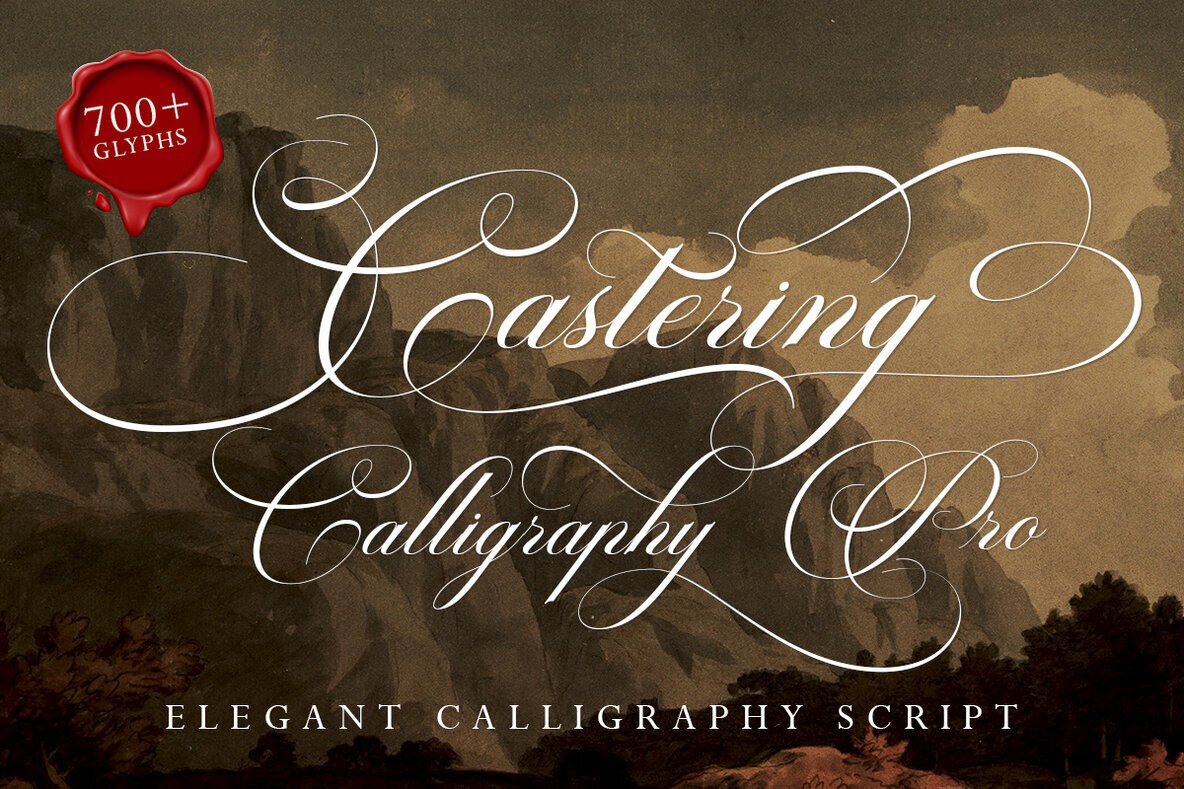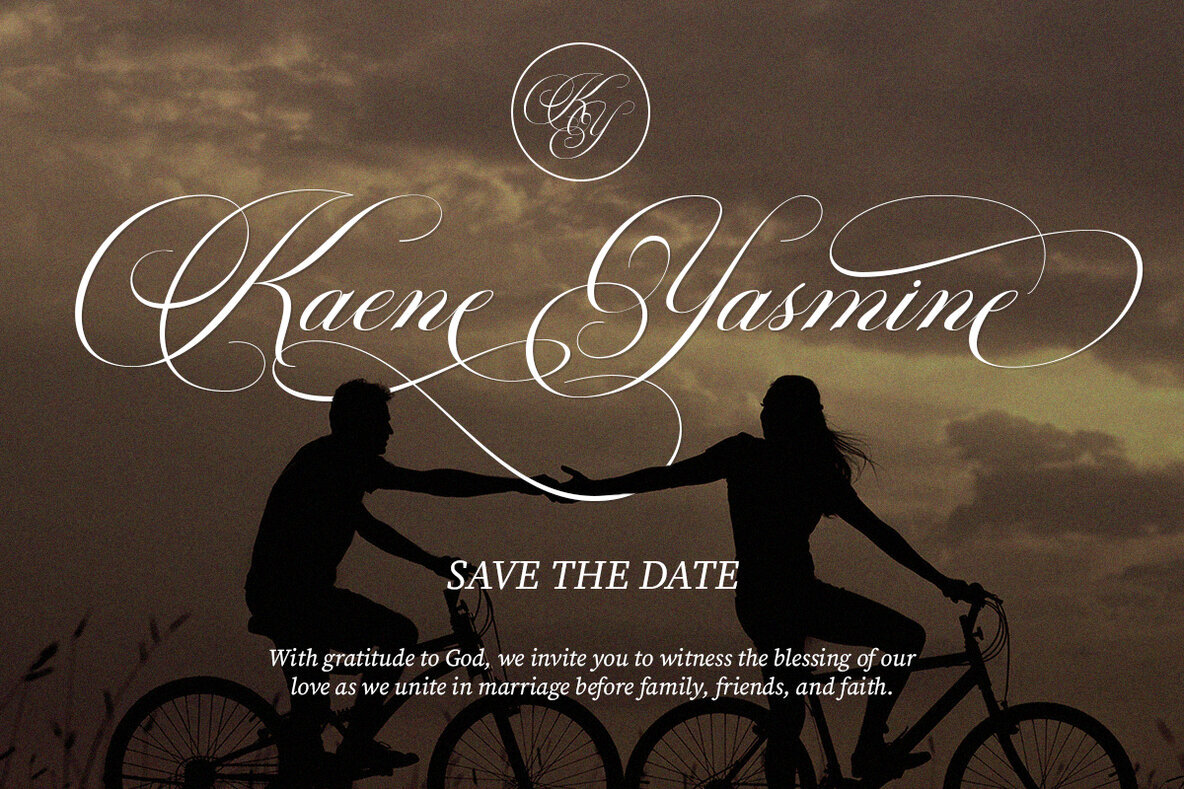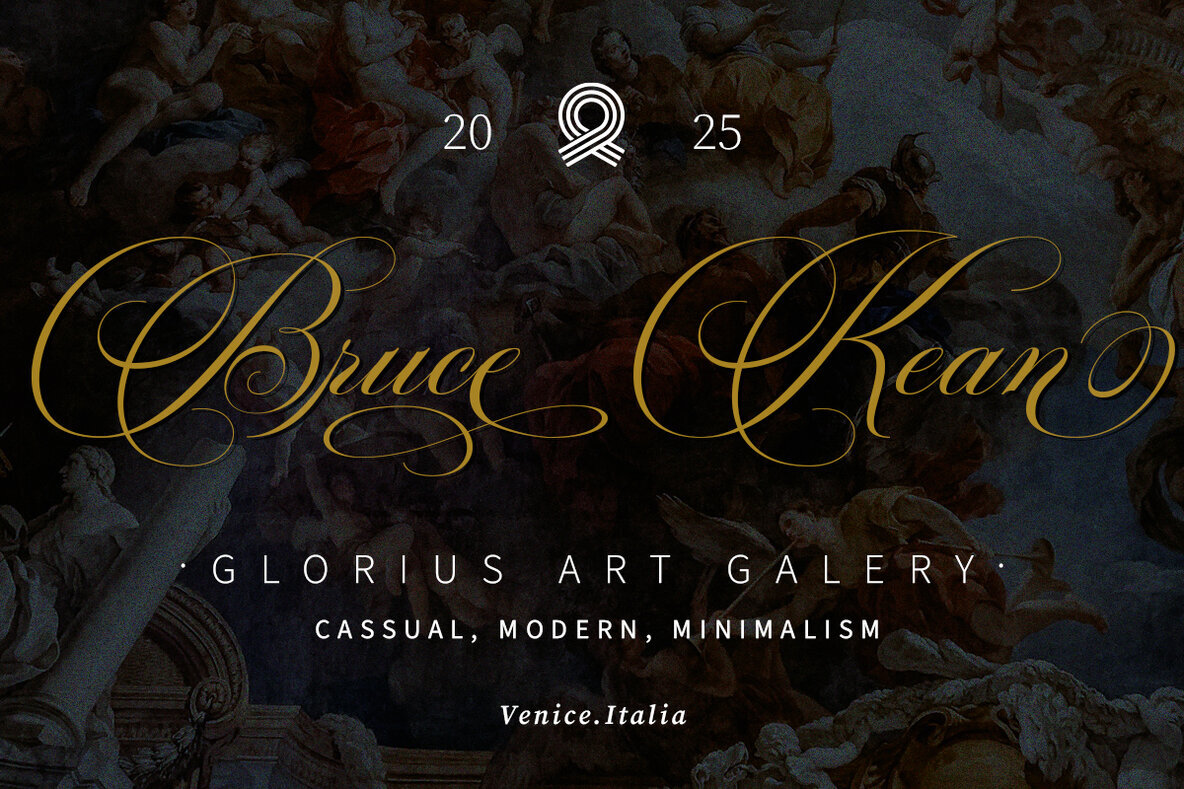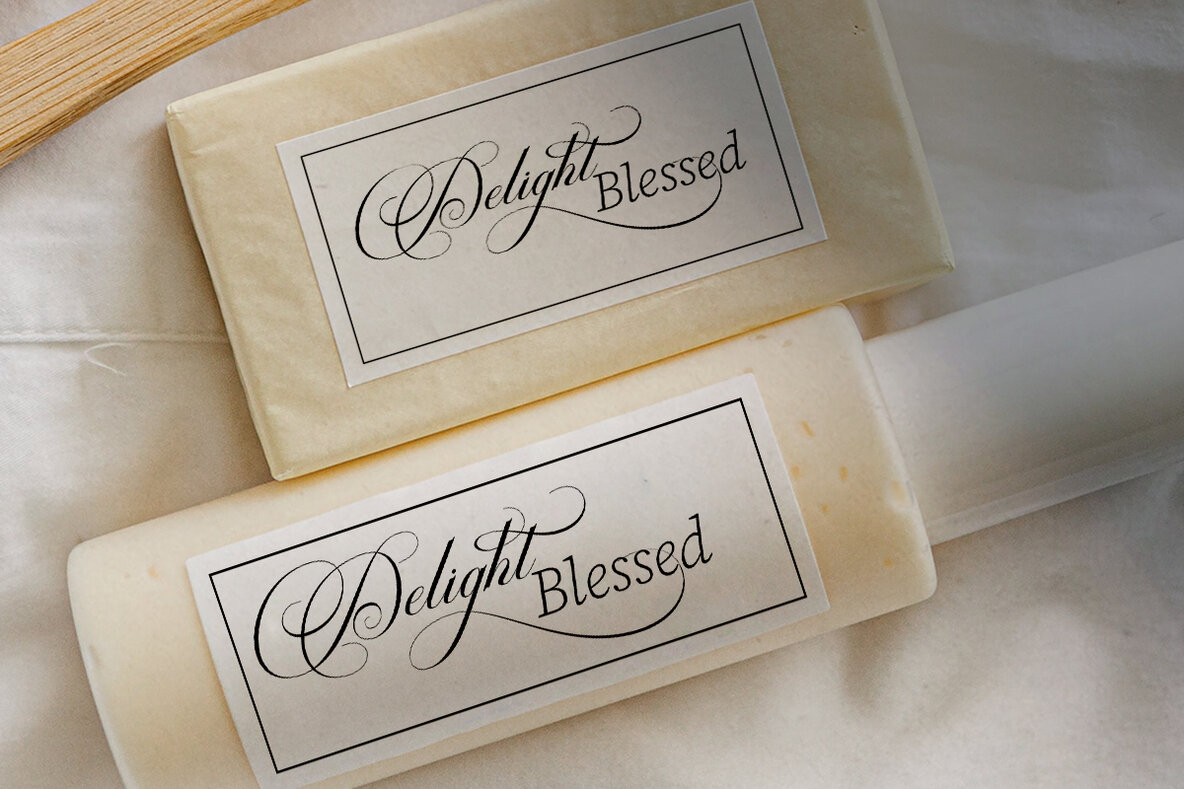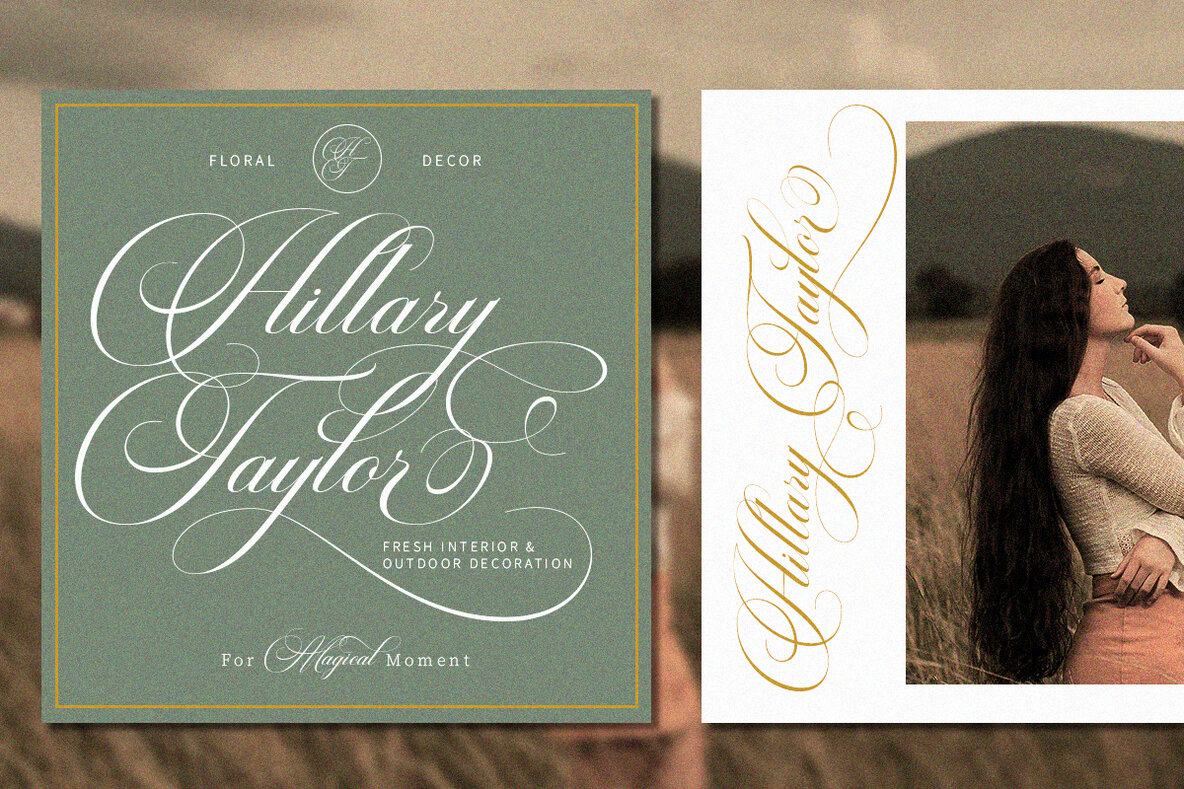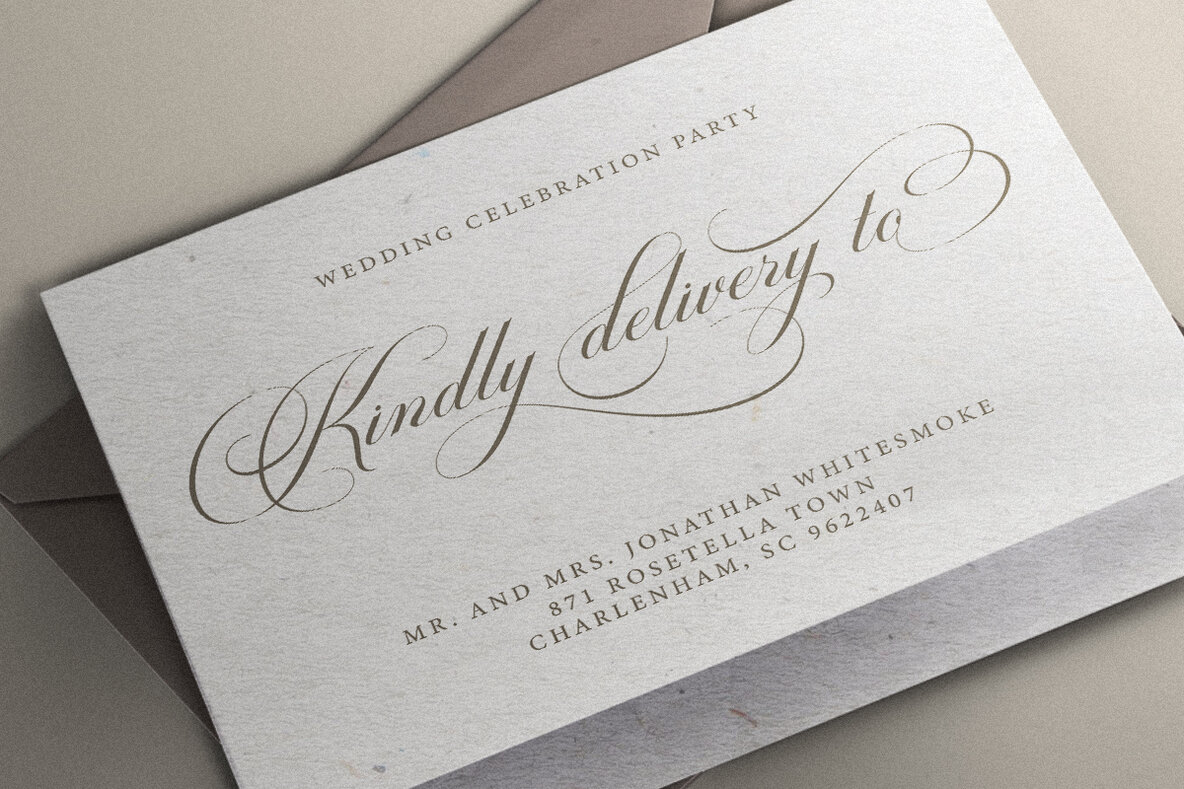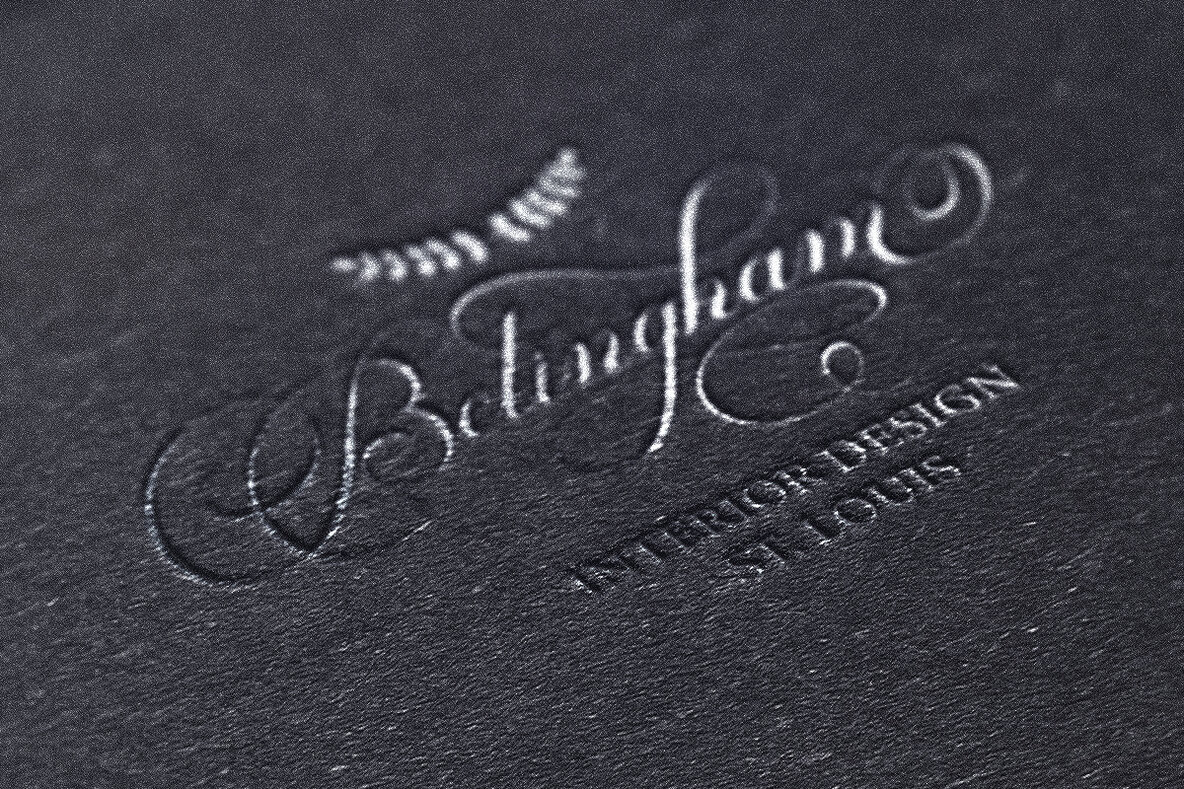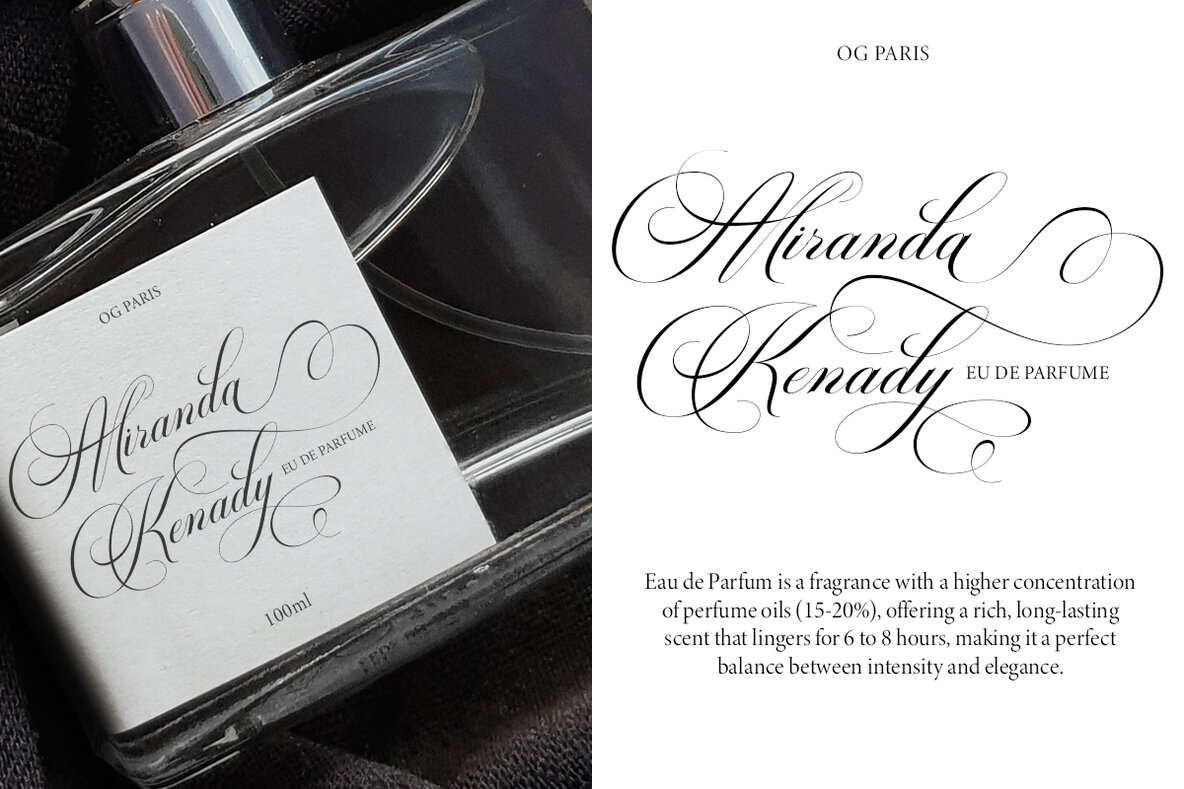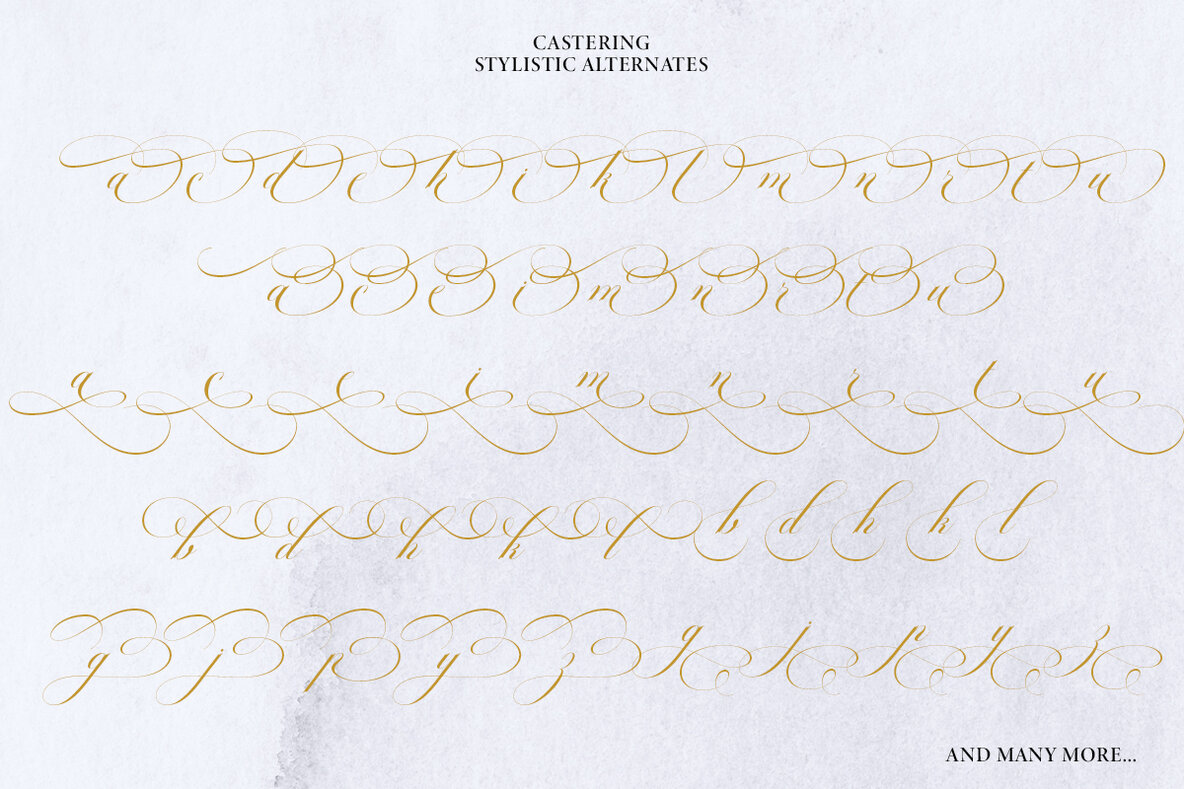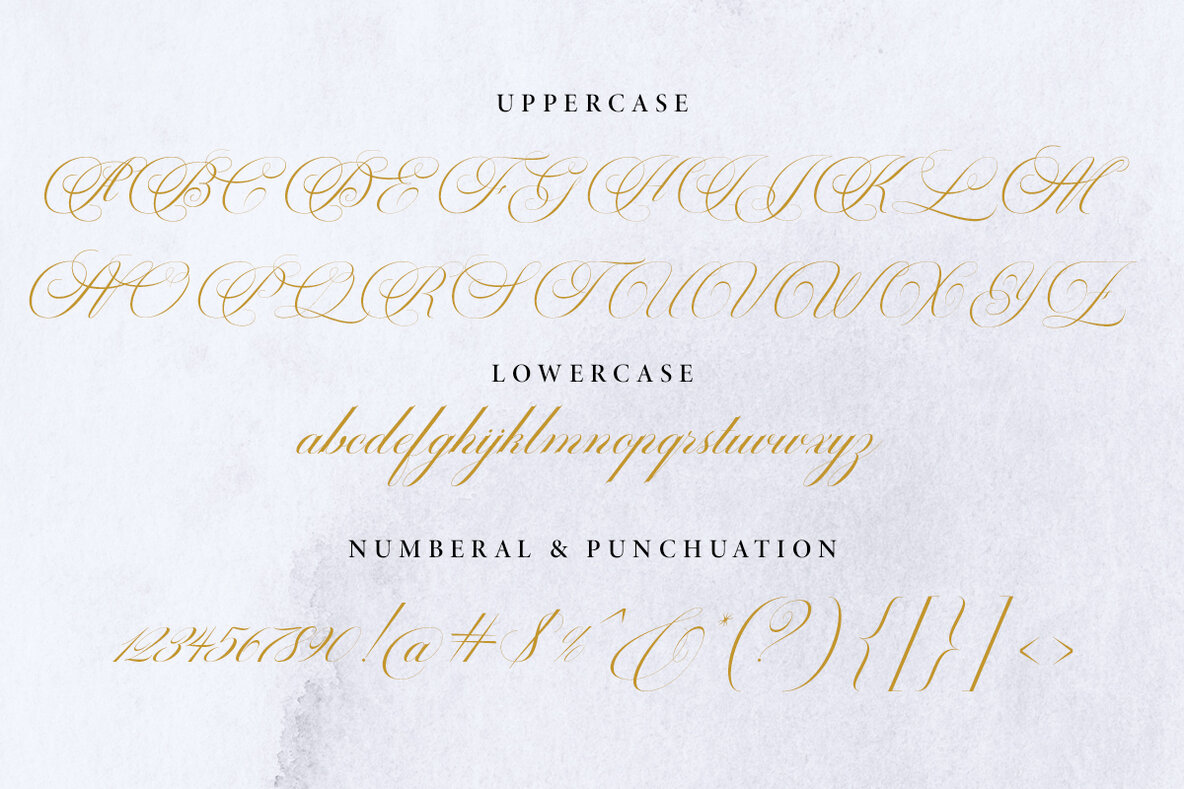
Castering Font
Castering Regular
Castering Calligraphy Pro is a meticulously handcrafted font created with a copper plate stylus, featuring OpenType capabilities and PUA encoding. This font includes alternative styles, style sets, ligatures, and swashes. Each lowercase glyph is uniquely stylized, making it perfect for branding, wedding invitations, cards, and quotes. To use the beautiful swashes in Castering Calligraphy Pro, you need a program that supports OpenType features such as Adobe Illustrator CS, Adobe Photoshop CC, Adobe InDesign, and Corel Draw. Swashes are called alternate styles. For example, the letter "a" with ss.01 and a closing swash is an alternate style for "a". To access these features, you need to open the Glyphs panel. In Photoshop, you can find alternatives and ligatures in the glyph panel. Select the desired font and open the Glyphs Window, then double click on the glyph you wish to use. To access the Glyphs panel in Illustrator, navigate through: Window > Types > Glyphs.Castering Calligraphy Pro: A Handcrafted Font with Opentype Features